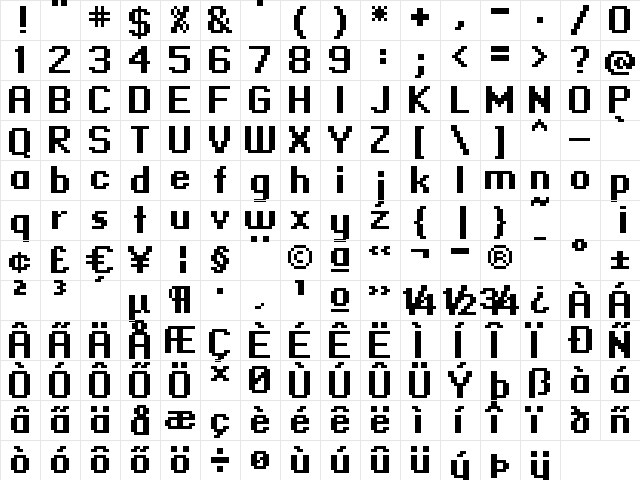
standard 09_65 Regular
| Designer | Craig Kroeger |
Design Context for standard 09_65 Typeface
standard 09_65 takes a measured approach to typography — its balanced proportions and neutral character make it a reliable workhorse for both digital and print work.